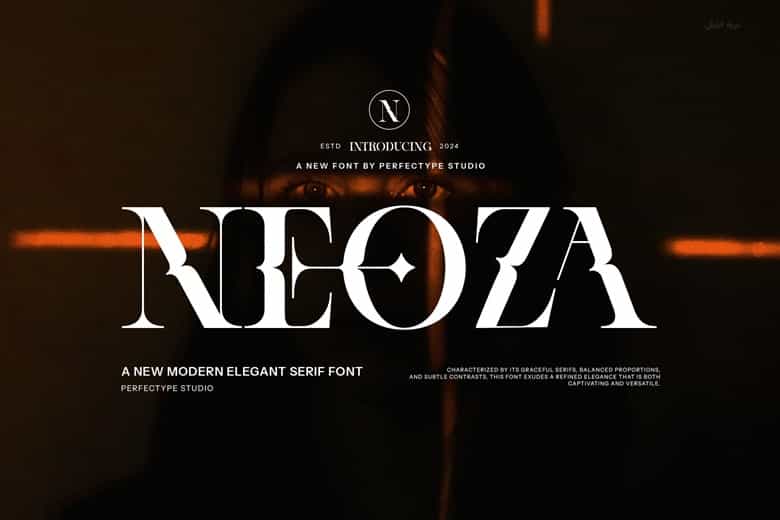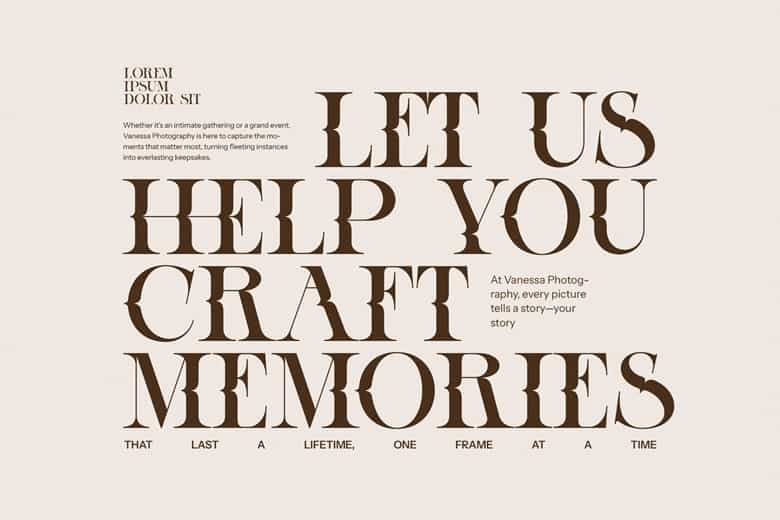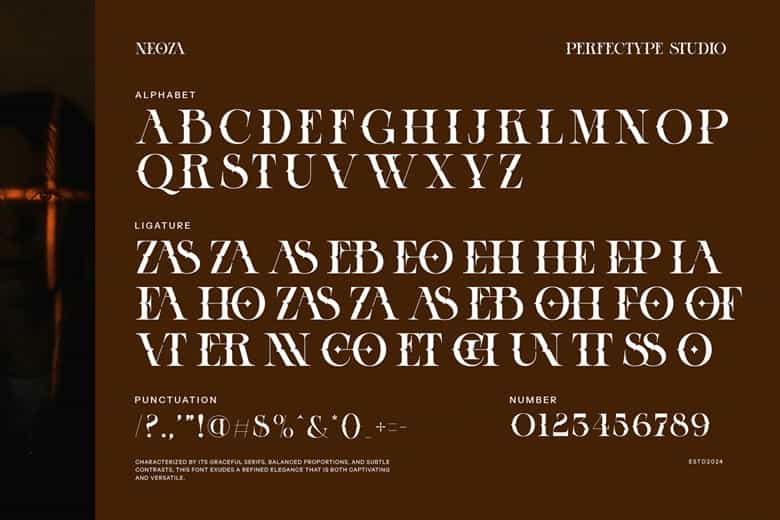
Neoza is a beautiful serif font, which includes fancy, swash letters with pretty little ornaments at the tips of the stem. It has that timeless elegance look that is suitable for formal events invitations, book covers, logos and packaging. The font is clear and can be used for pretty much any design project and give it a bit of elegance.